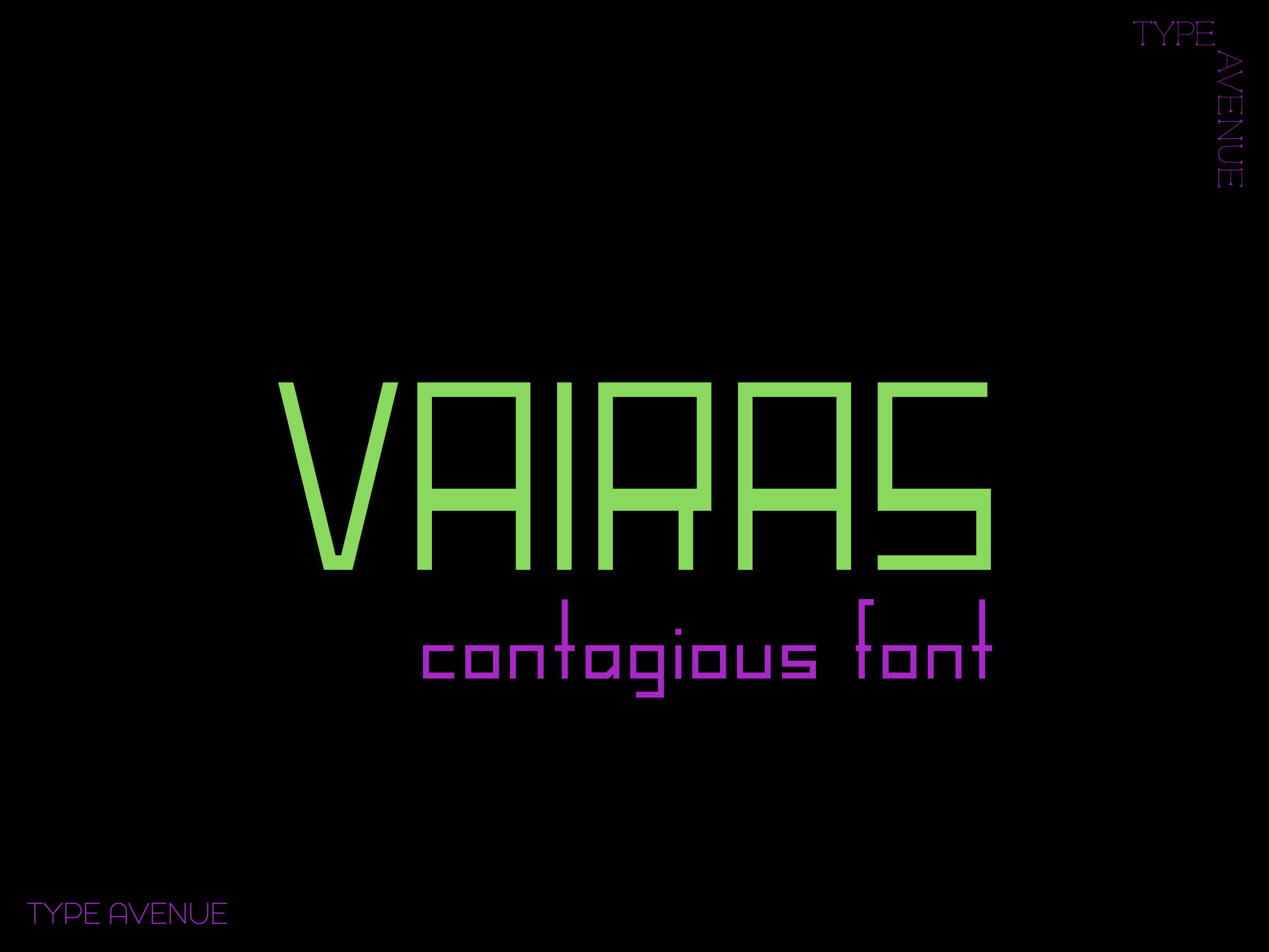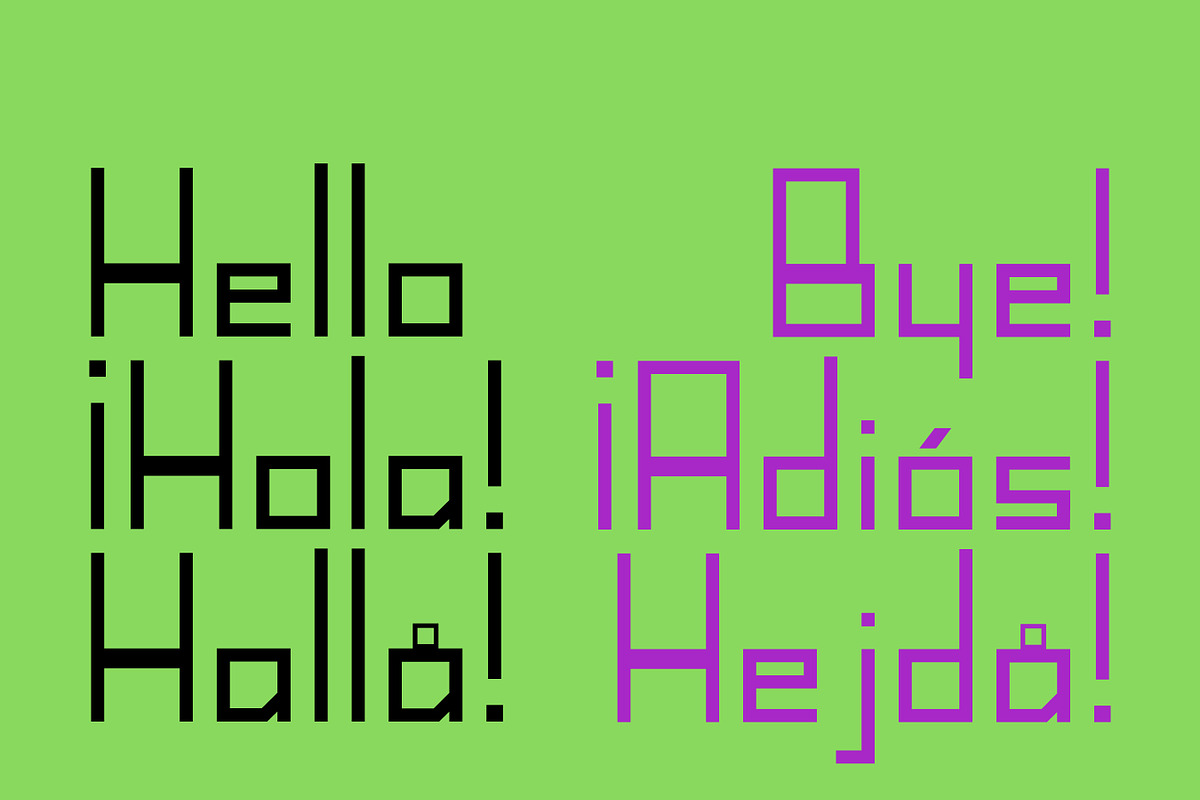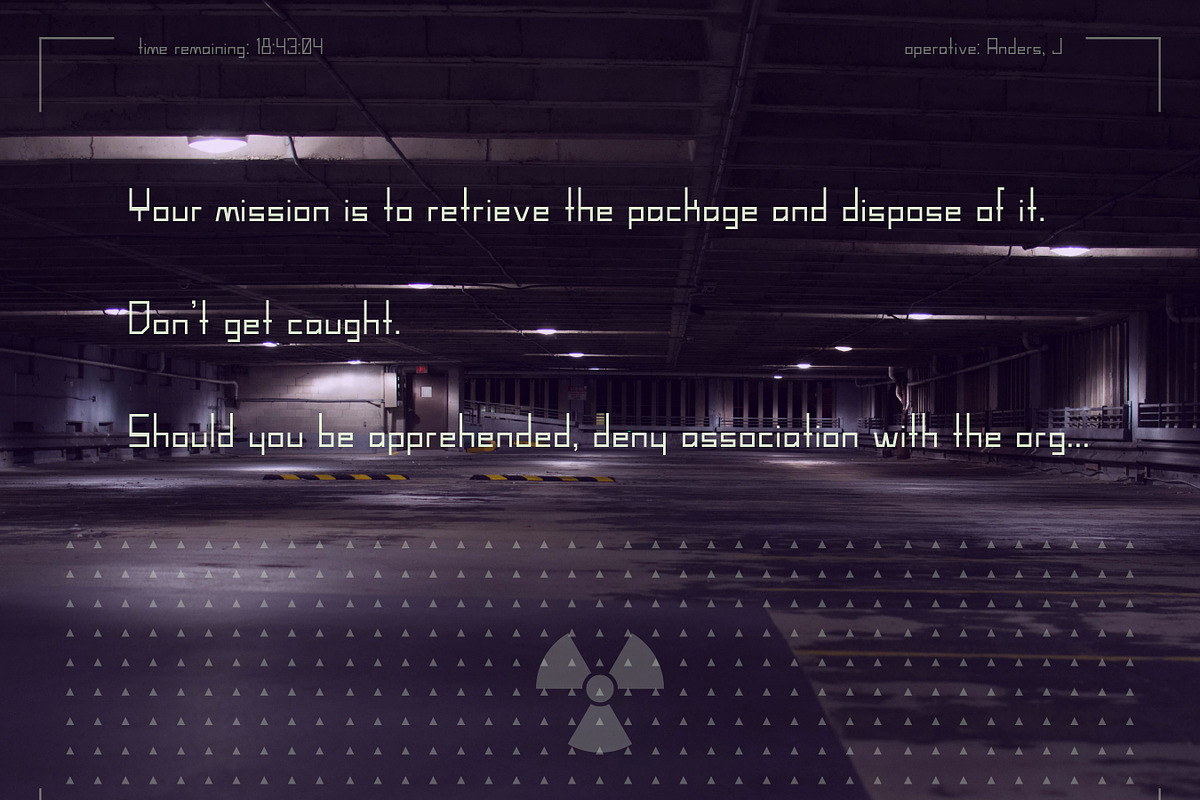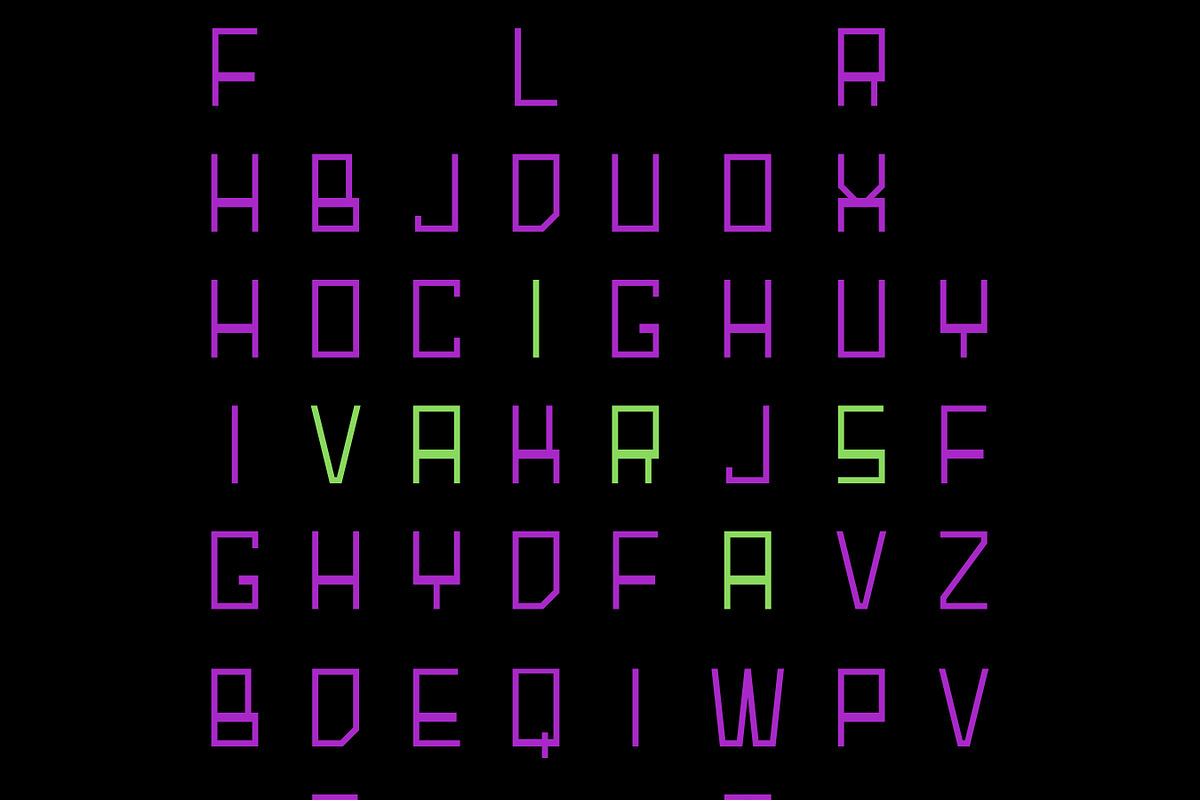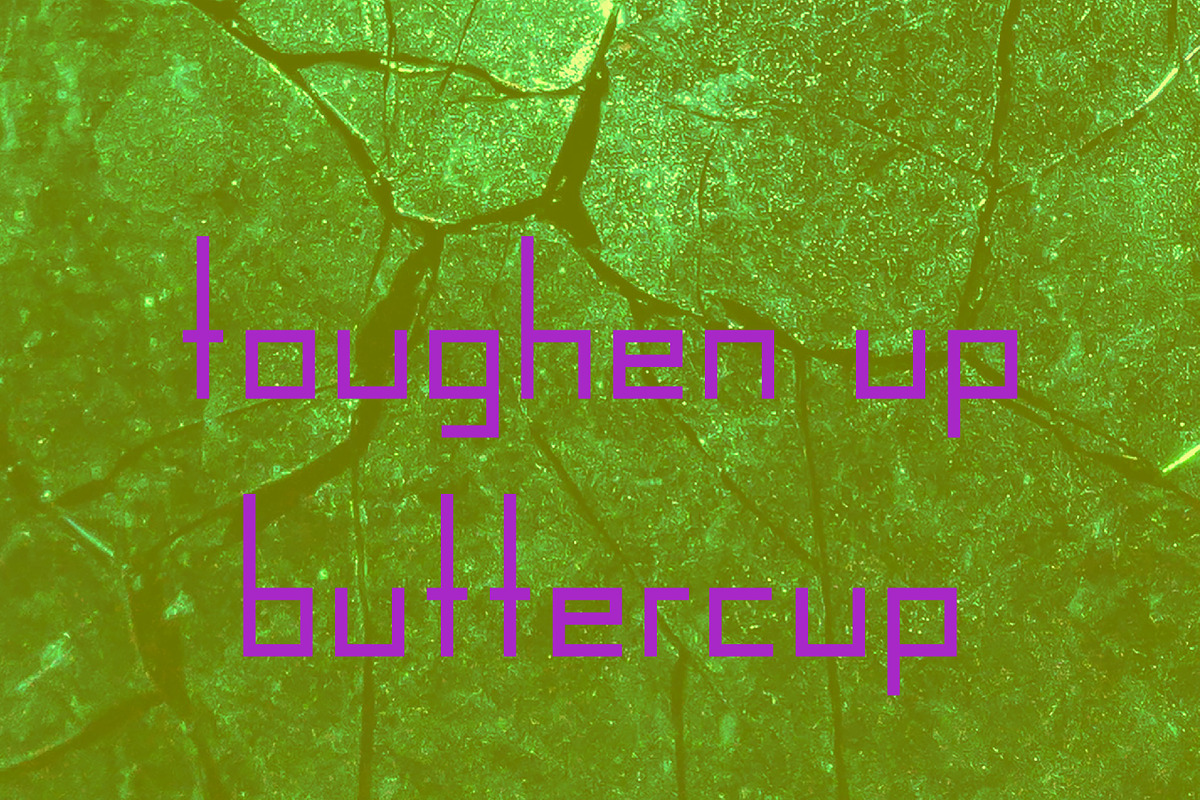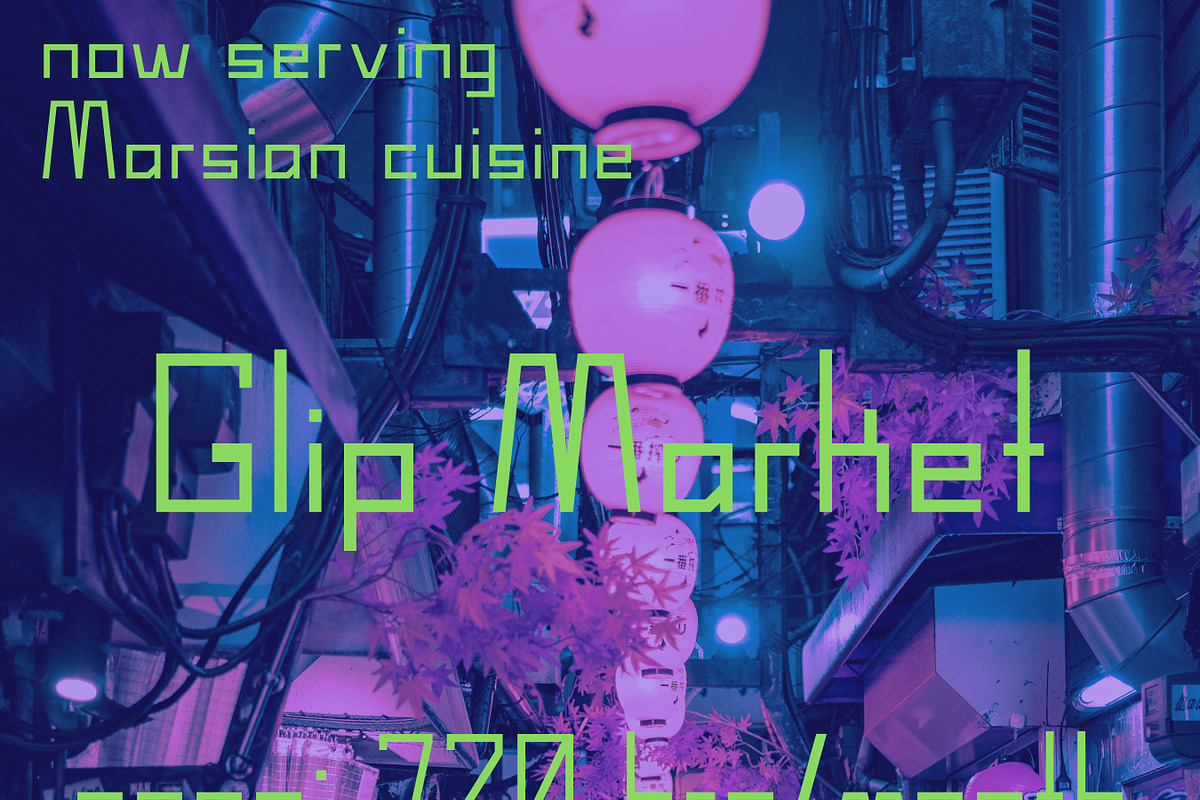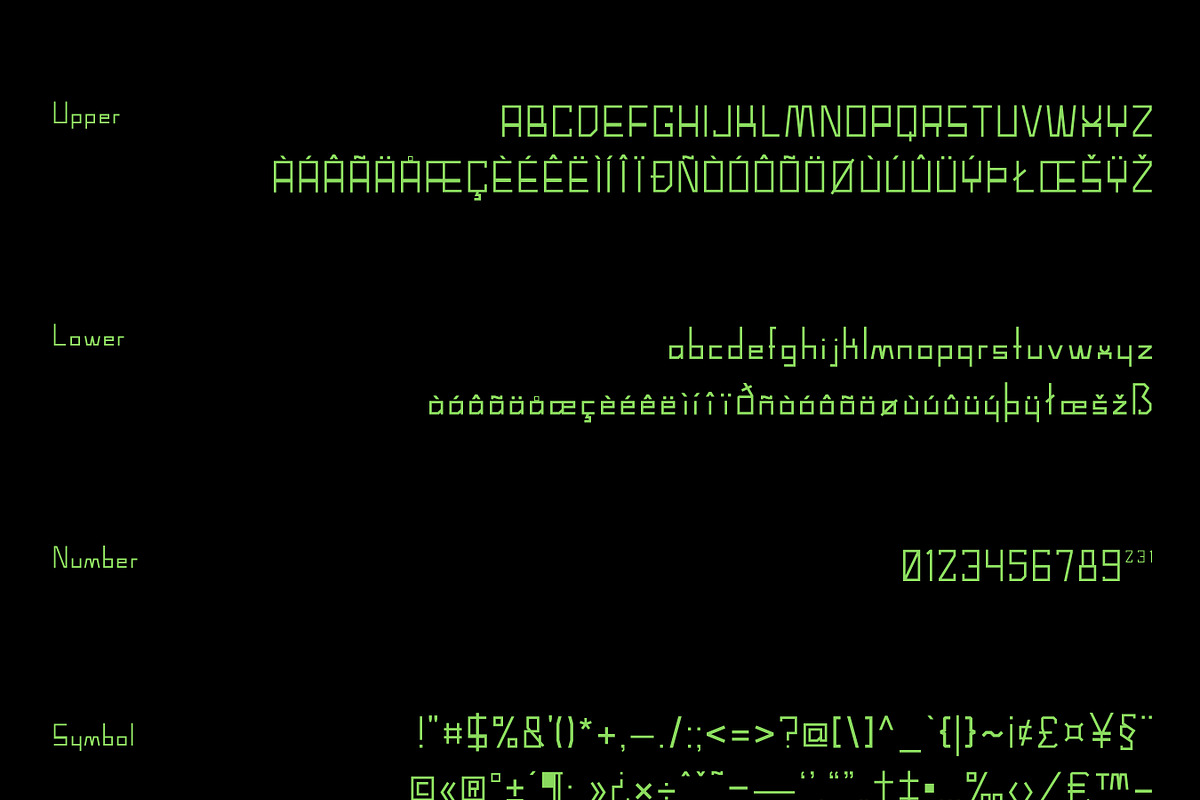
Vairas Font
Vairas, not to be confused with virus, is a font inspired by futuristically styled fonts. It’s designed to be square and simple, but features a thickened crossbar. This is perfect for the font in a video game, cyberpunk poster, and so much more…